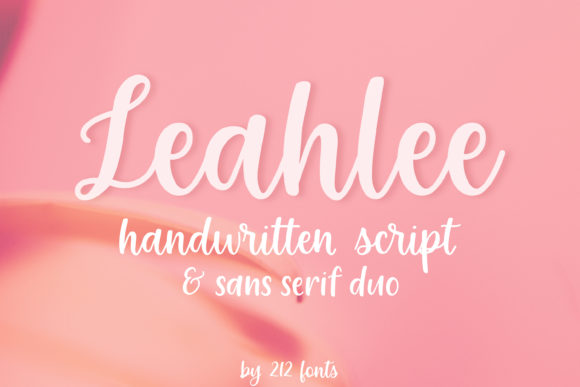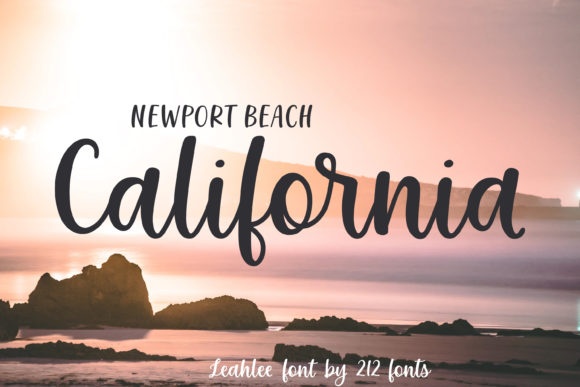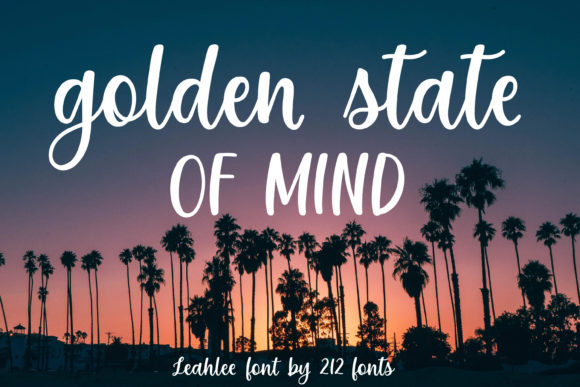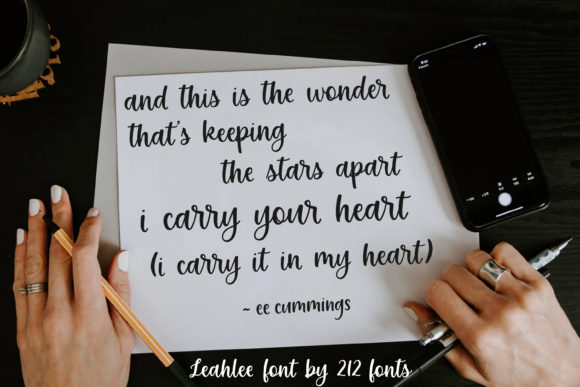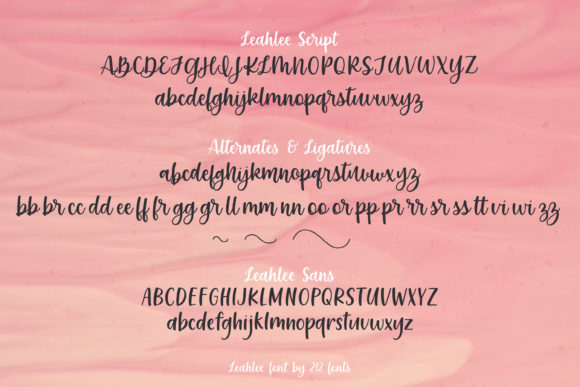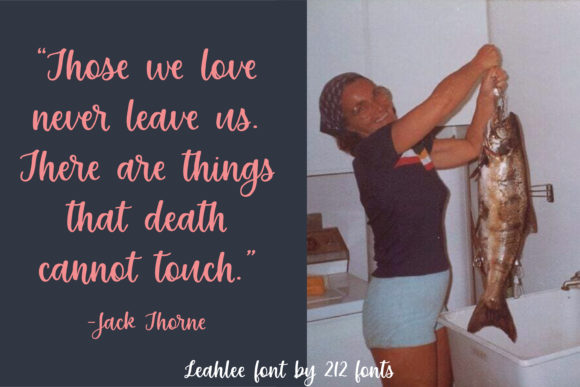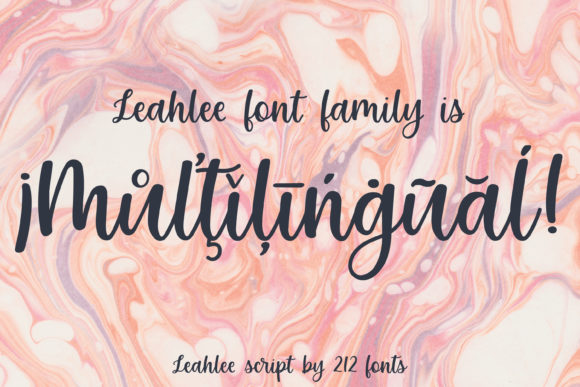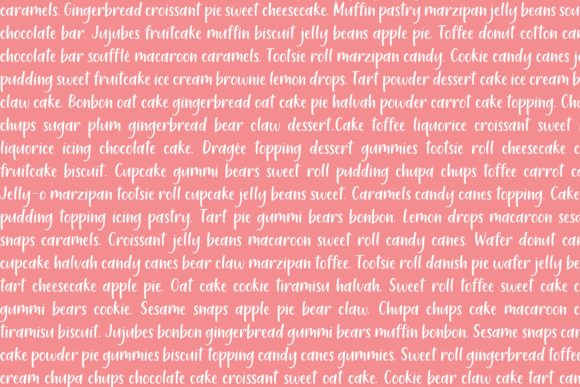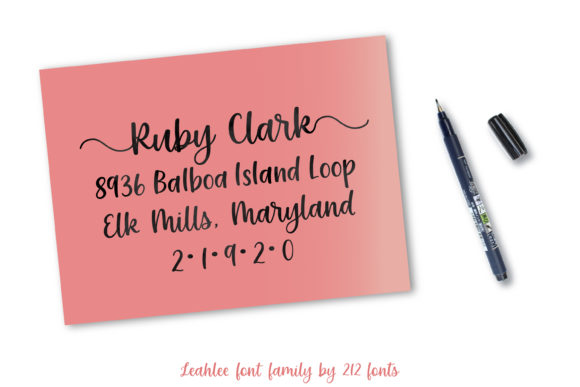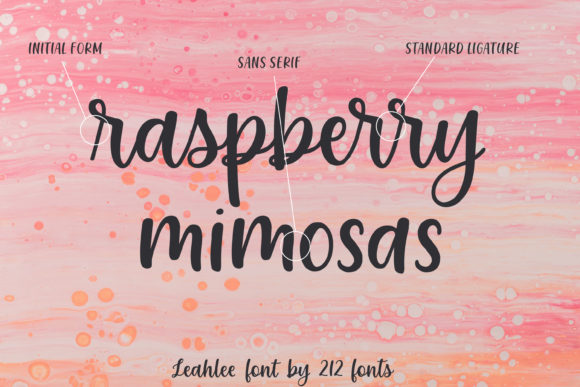
Leahlee Duo Font
About Leahlee Duo Font
Leahlee duo is a match made in heaven, the authenticity of the script perfectly complements the serif’s style. Combining these two fonts on your next design will give your next design a charming and elegant feel.
This versatility means that this font can be used in a wide variety of applications from DIY projects, to branding – the only limit is your imagination!